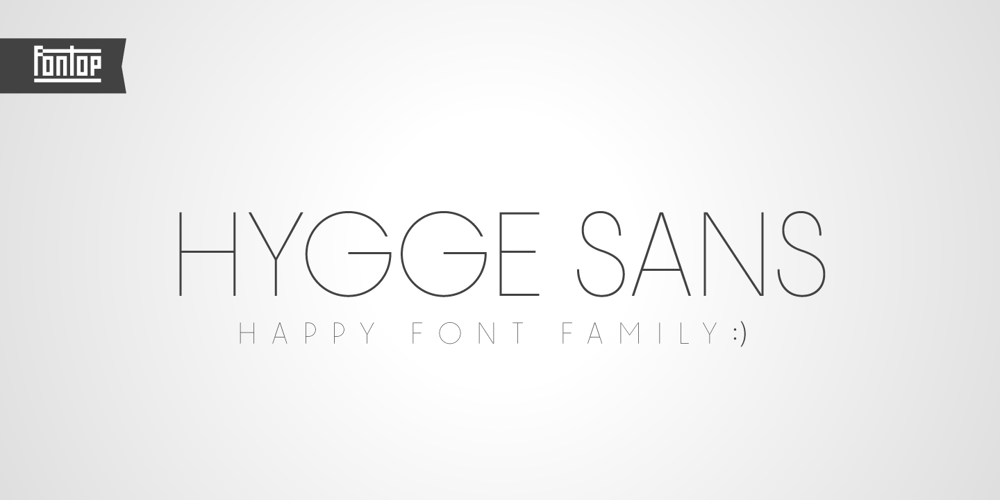
Hygge Sans
Hygge Sans font
Hygge Sans Font Family was designed by Dmitry Arakelov and published by Fontop. Hygge Sans contains 34 styles and family package options. Hygge Sans is inspired by Danish hygge culture meaning coziness and comfortable conviviality with feelings of wellness and contentment. Hygge Sans’ elegant simplicity makes this font family modern but timeless, clear and classy.It’s perfect for headlines, editorial uses, and advertising projects, as well as beautiful luxury logos.The font family comes in 24 fonts and includes stylistic alternates.